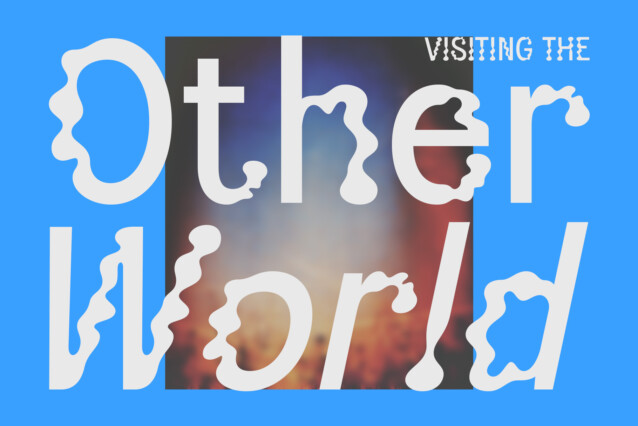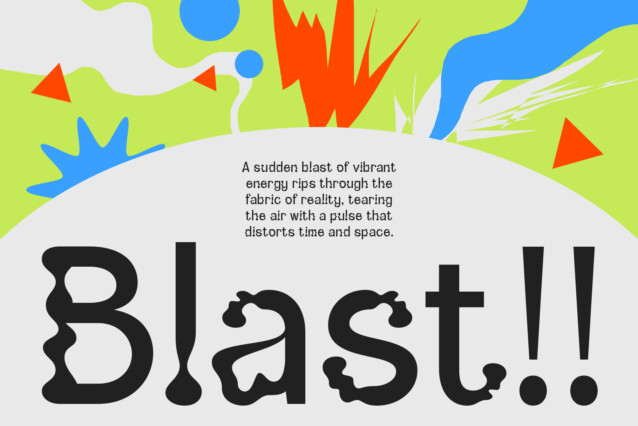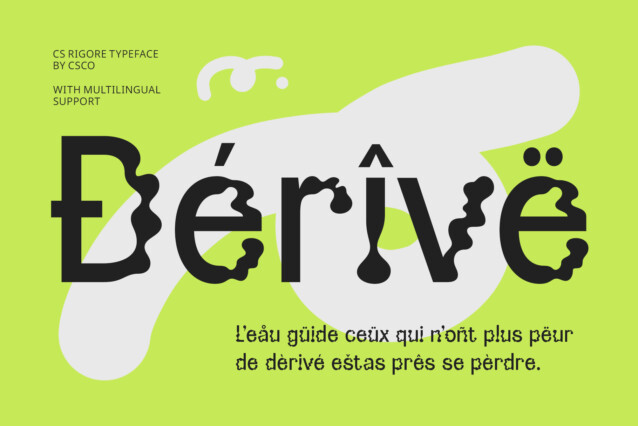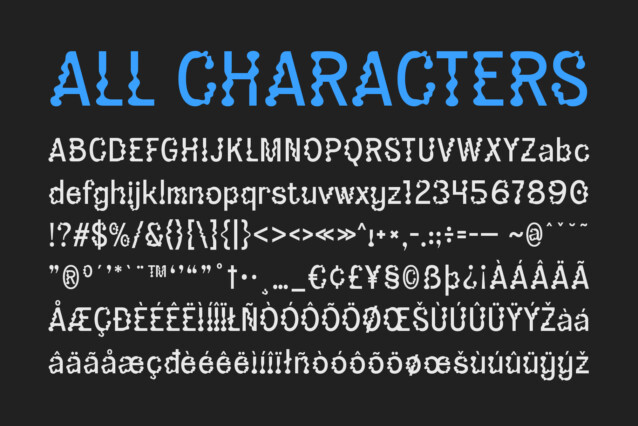
CS Rigore Font
CS Rigore Font is a modern display font that pushes the boundaries of conventional design with its trippy, irregular shapes and energetic aesthetic. The letters appear distorted, curved, and fragmented, creating the sensation that the text is in motion, transforming, or even spiraling. This dynamic, bold design allows the font to exude a sense of fluidity, offering a visual experience that’s both captivating and lively.